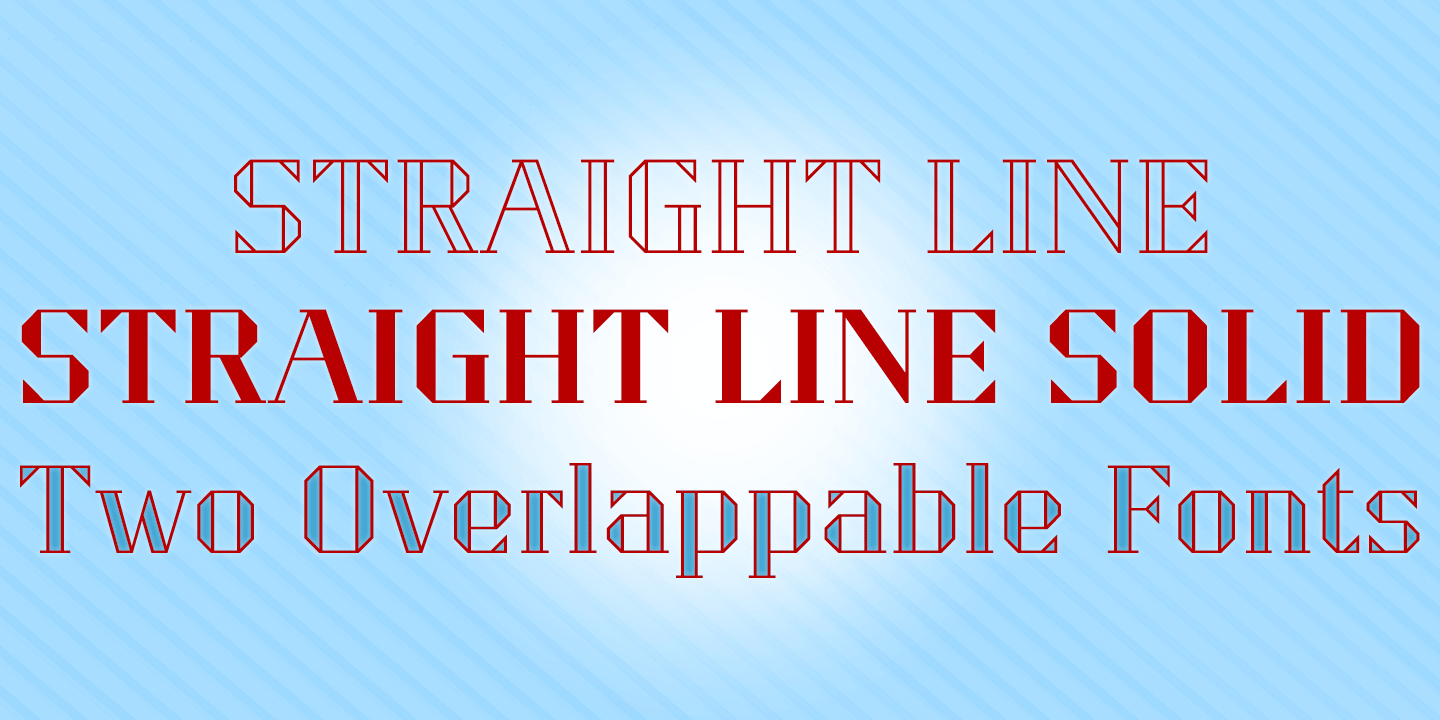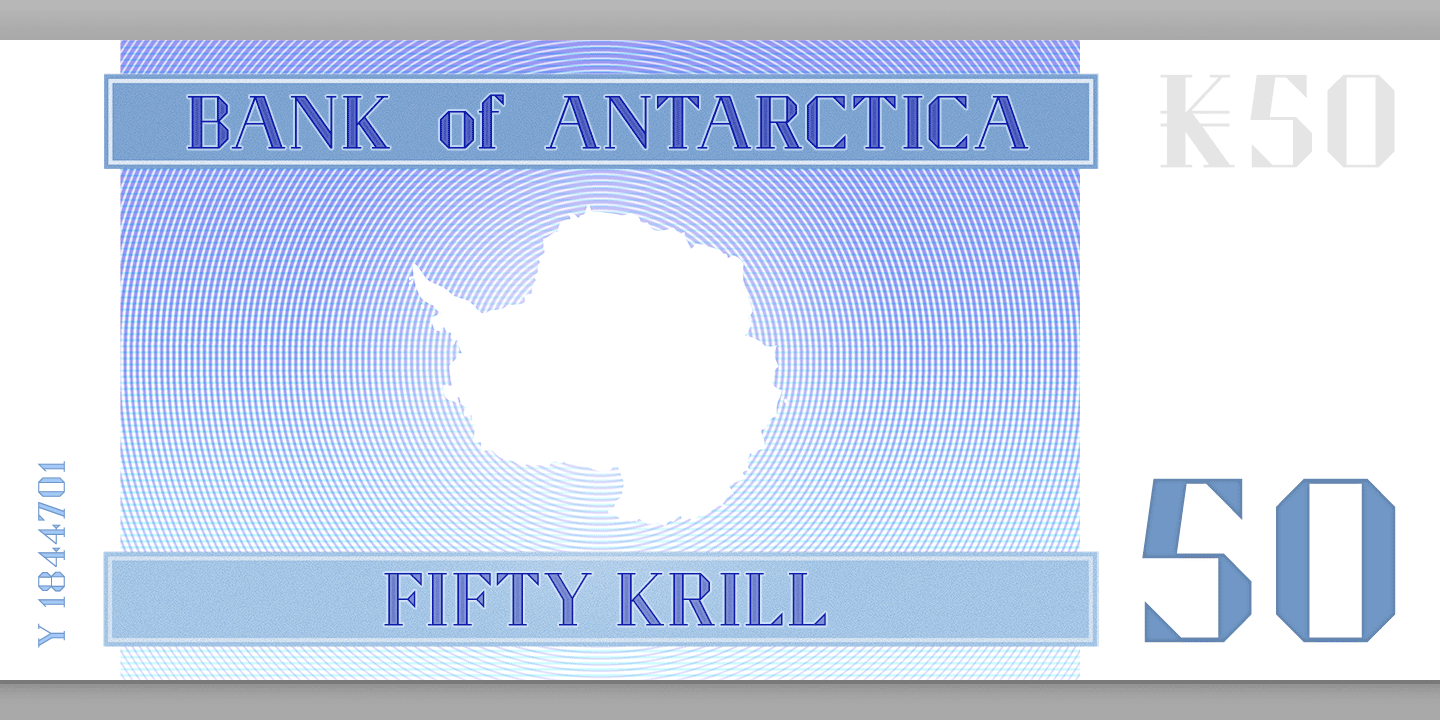
About Straight Line
Straight Line is essentially an outline Modern, but drawn without any curves whatsoever. Thin horizontals and thick verticals provide the classic look of a Didone, updated and enhanced by clean, minimalist geometry. In addition to the Straight Line font…